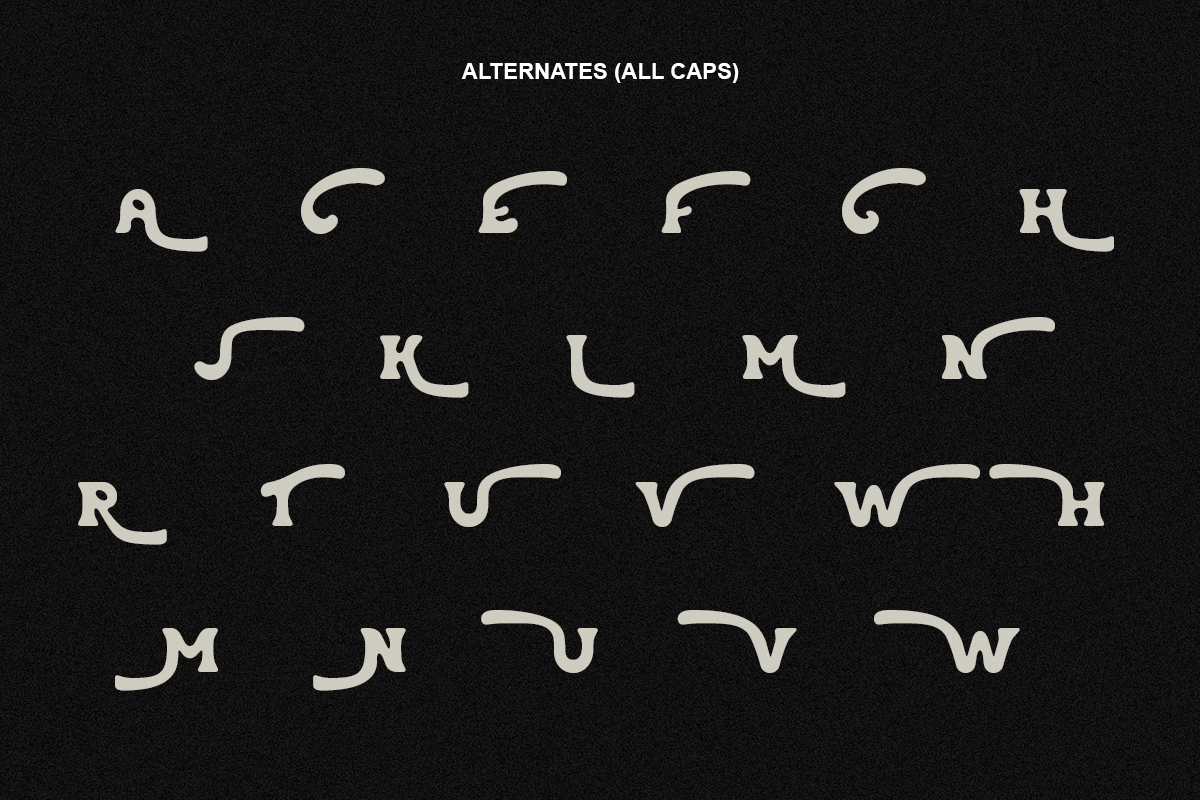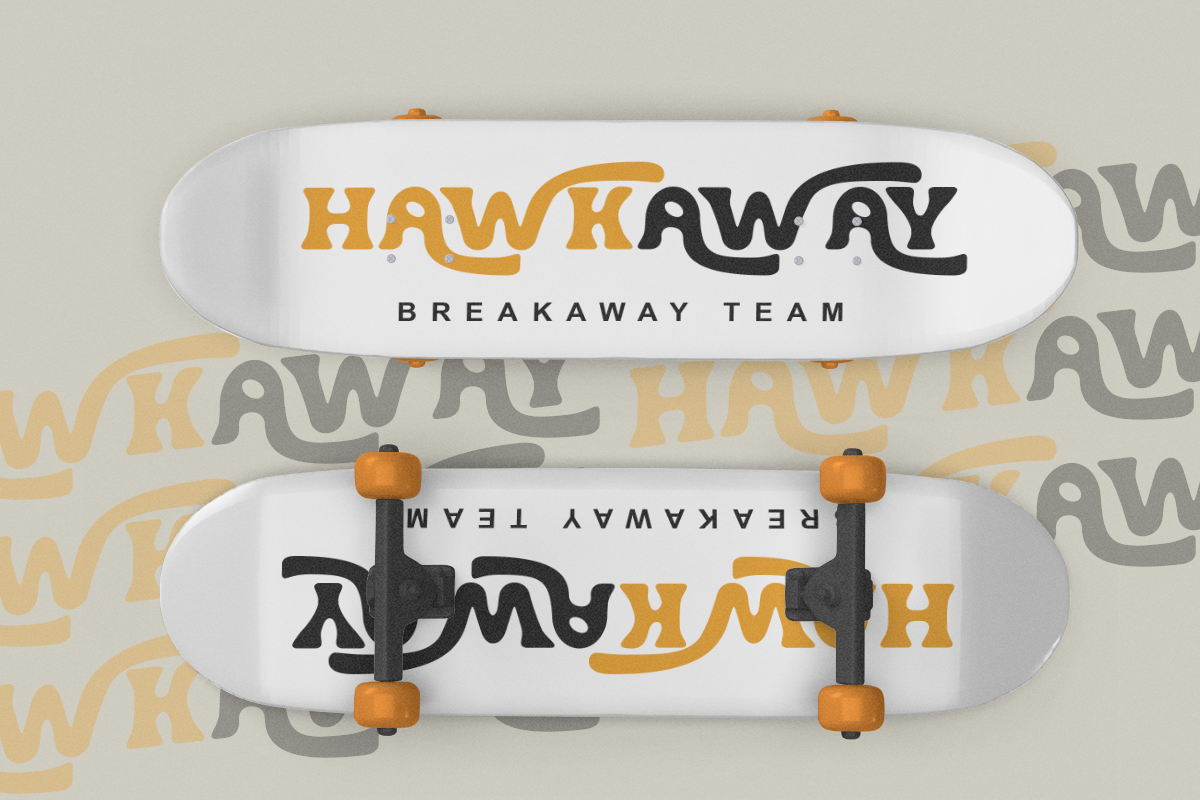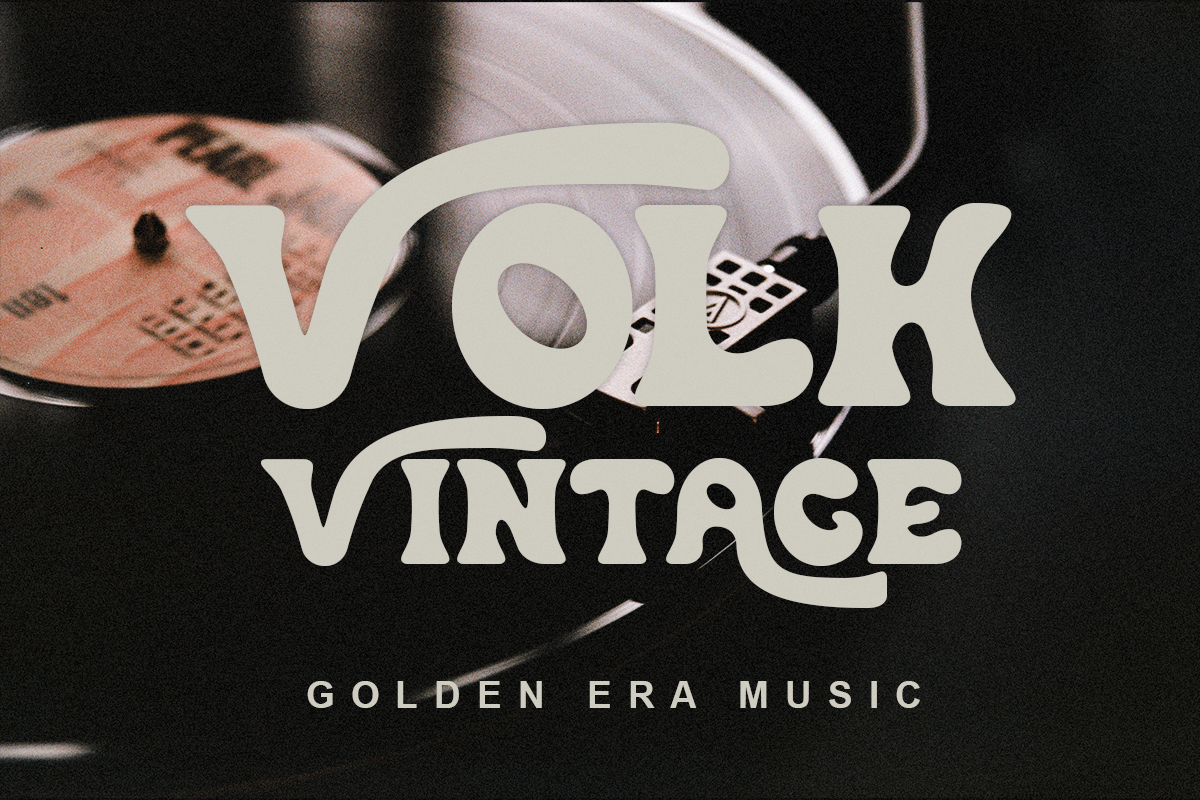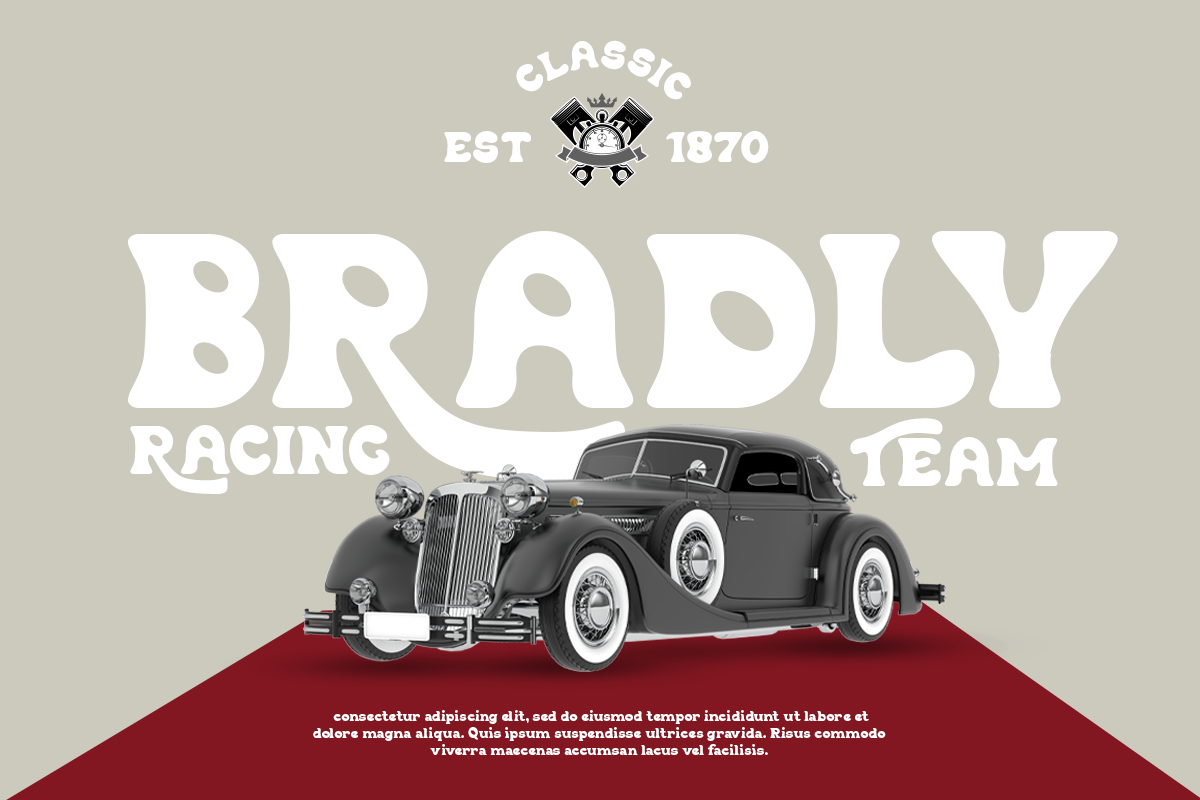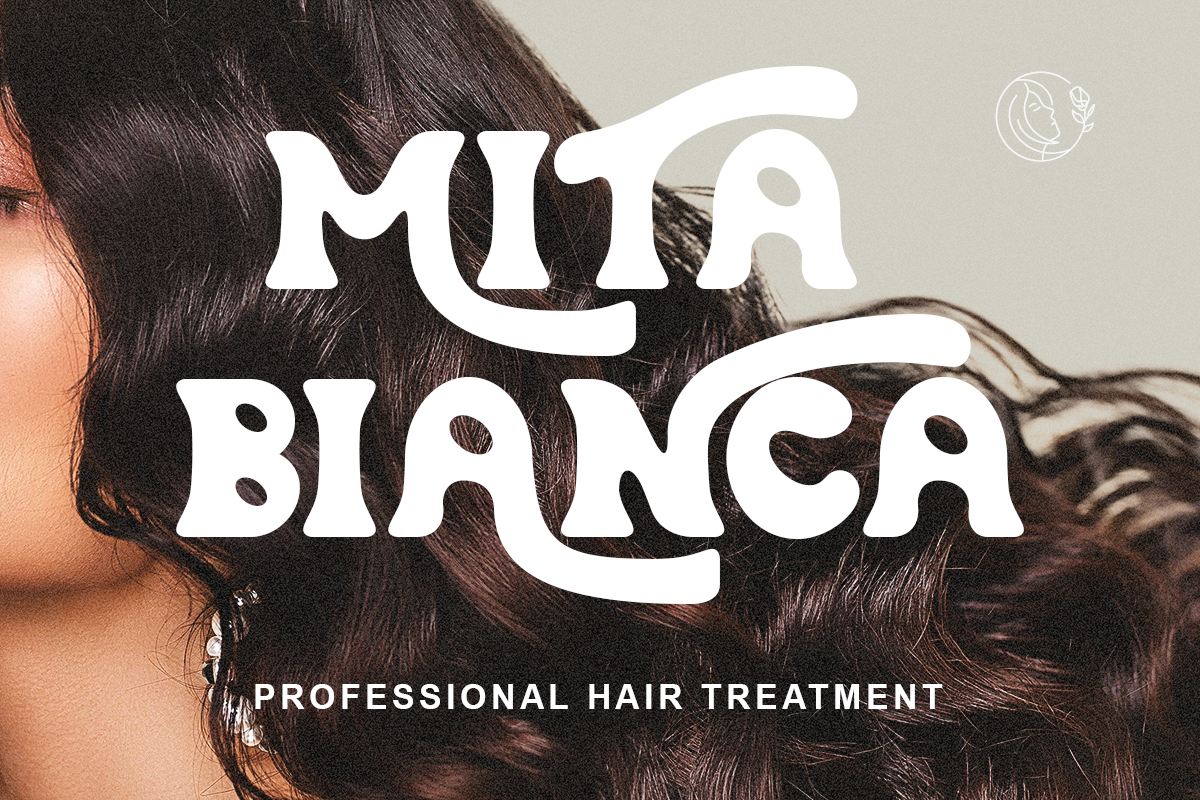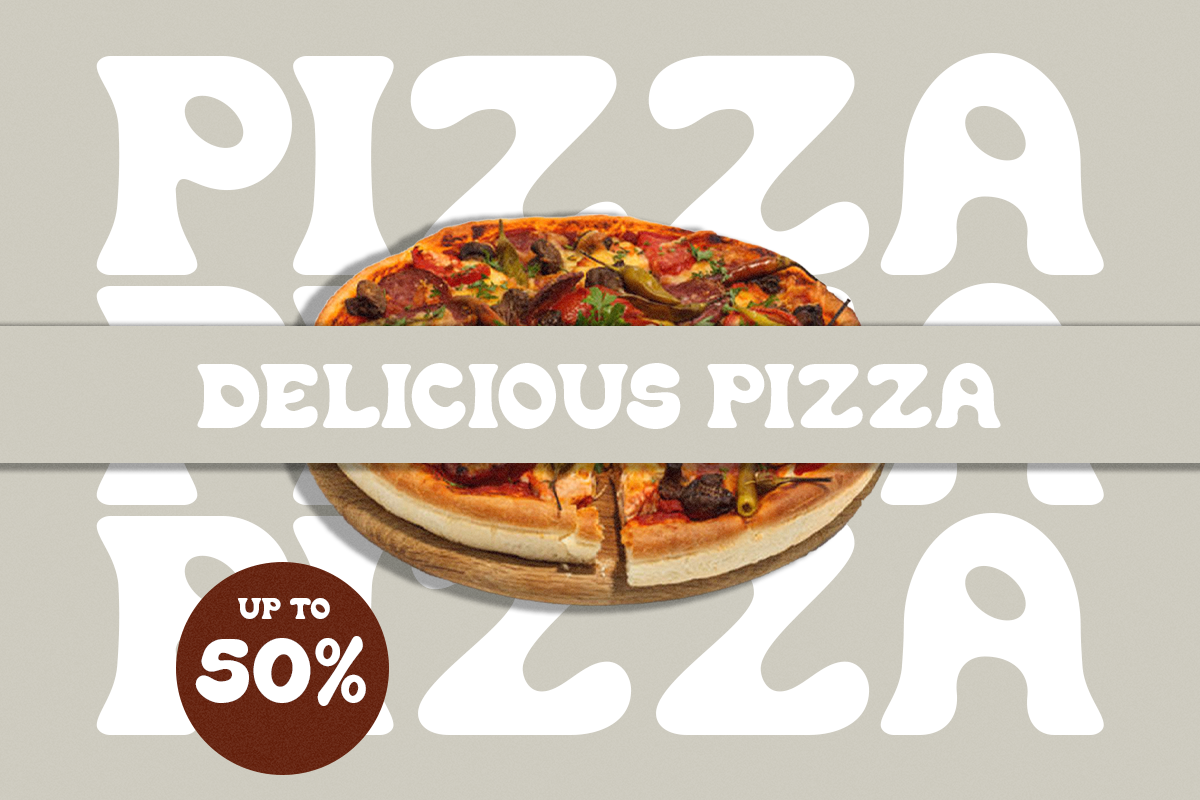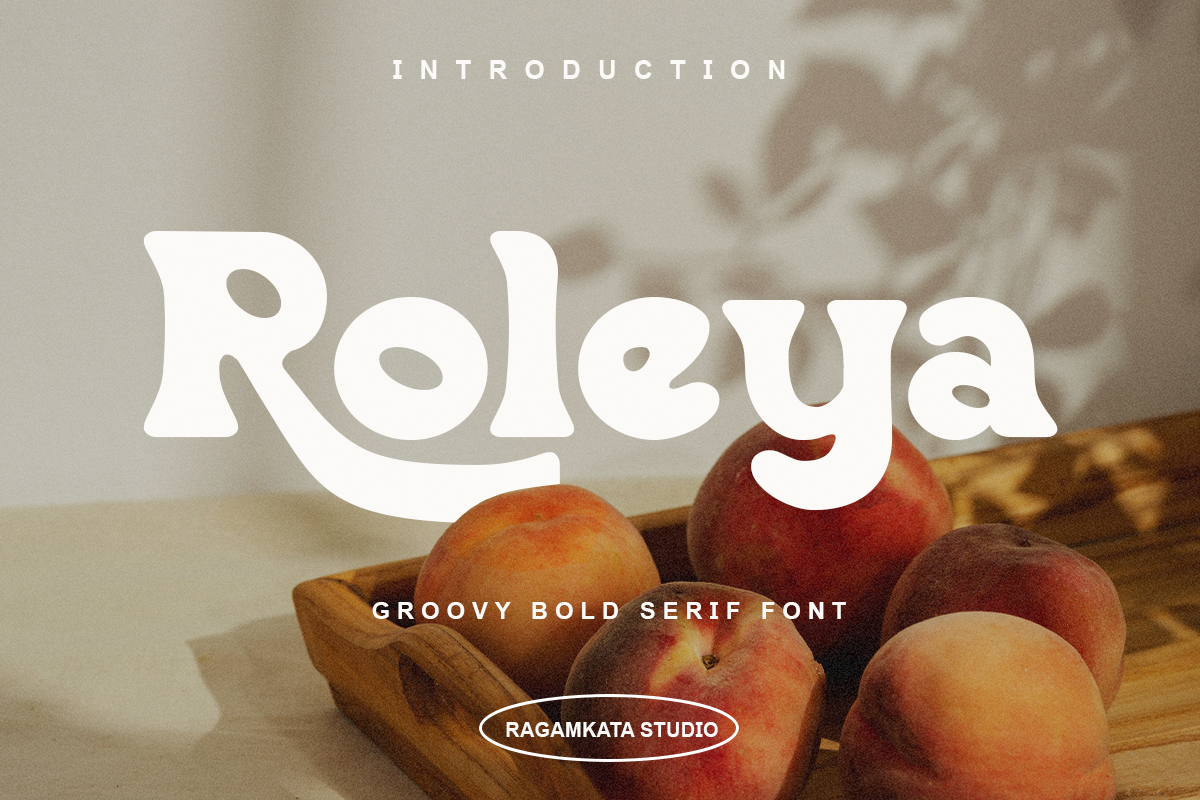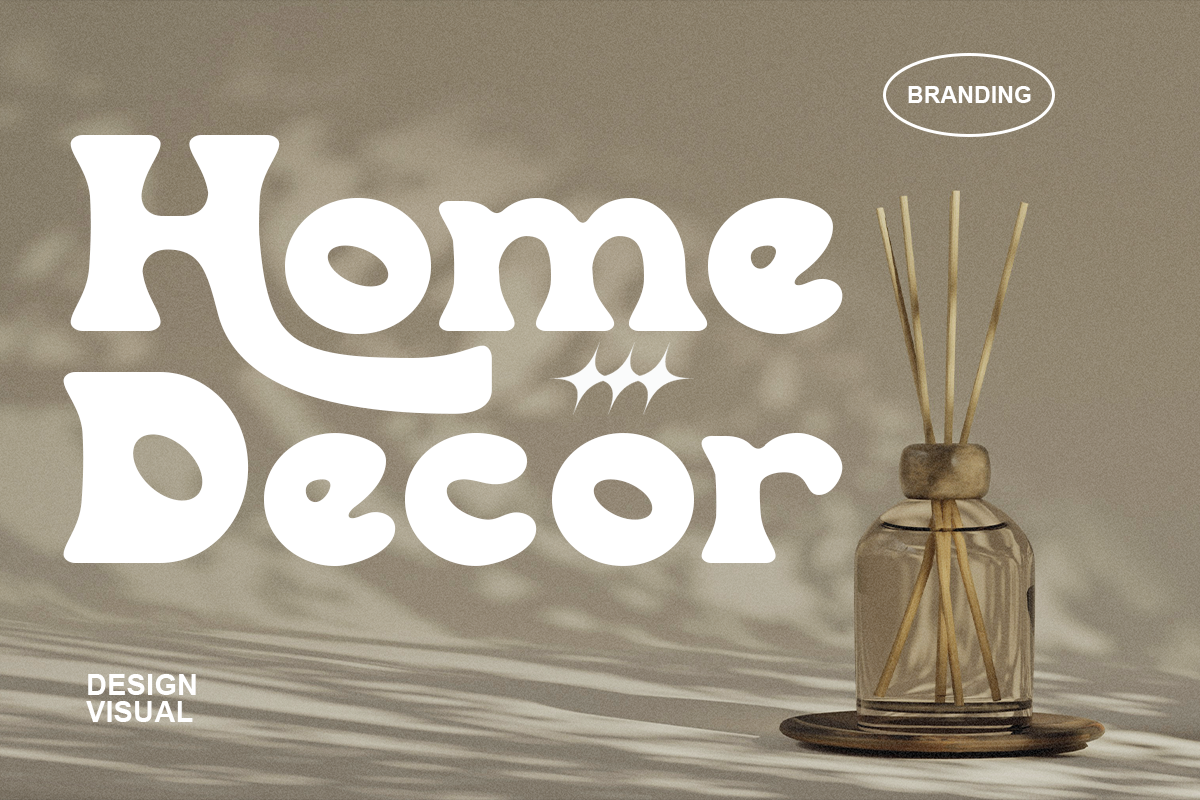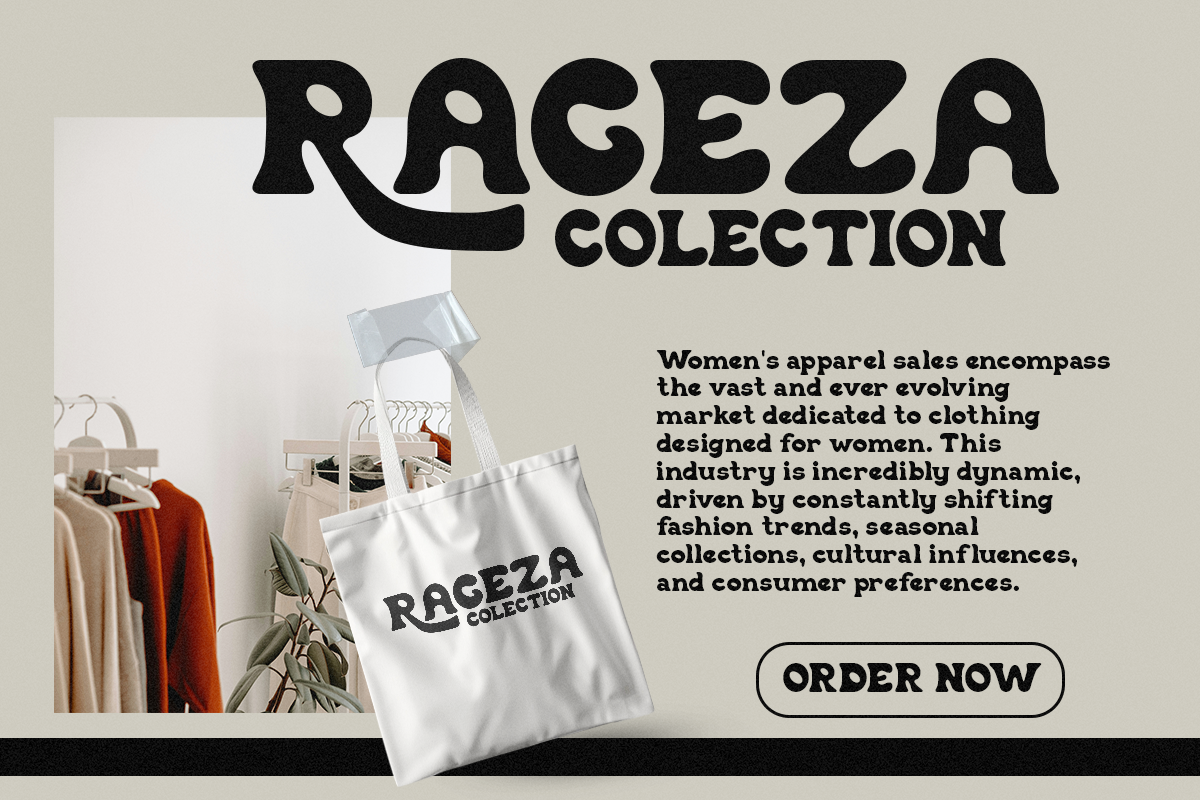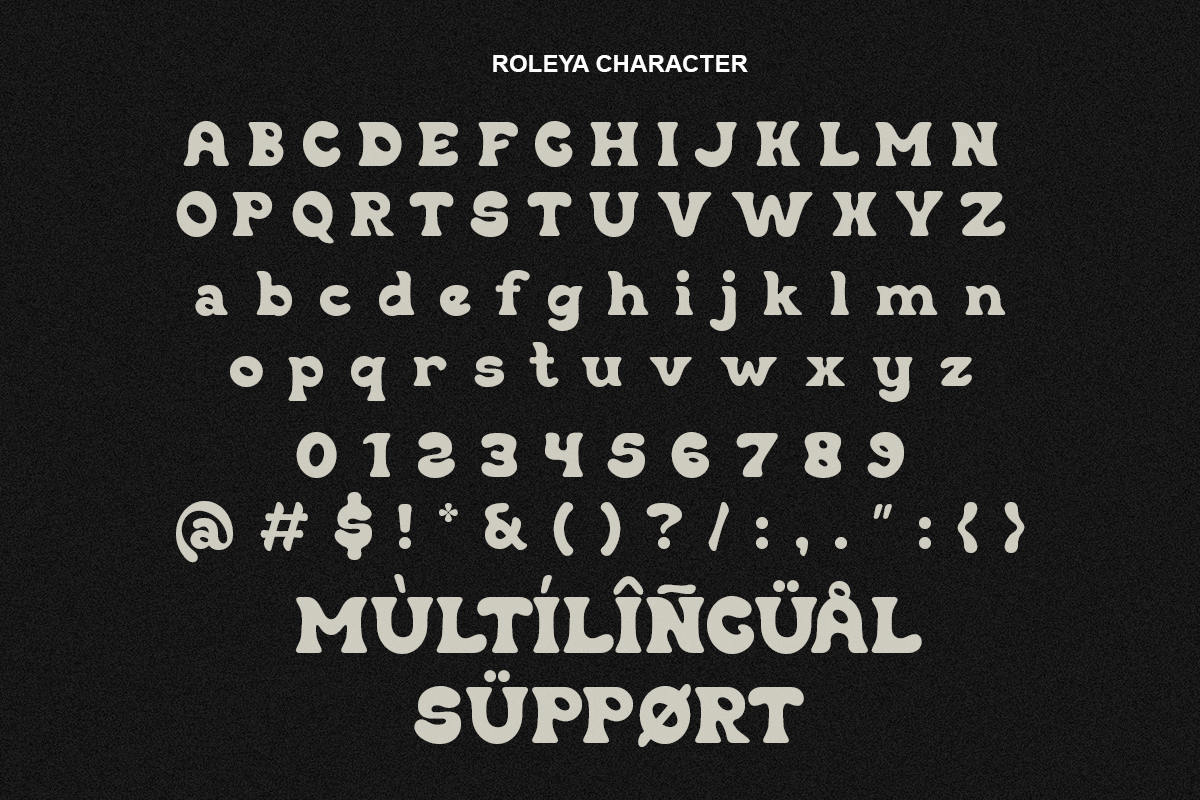
Roleya - Groovy Bold Font
Roleya is a groovy bold serif font that merges retro charm with modern flair. Its smooth design and striking presence make it ideal for infusing your projects with vibrant energy and a youthful vibe. Perfect for a variety of design applications, this font stands out with its bold character and distinctive style, creating a lasting impression in your work. Roleya perfect for working on branding, invitations, or digital art, Teenage Delight offers a powerful tool for designers seeking to make a bold statement.